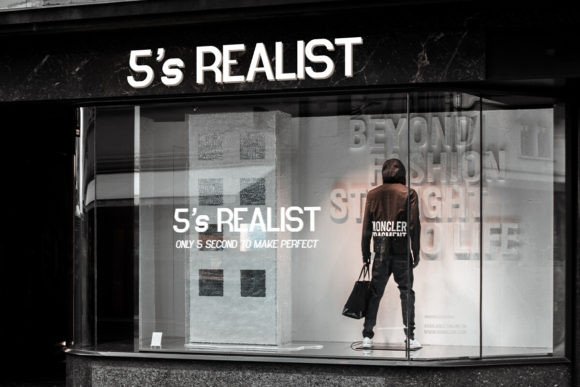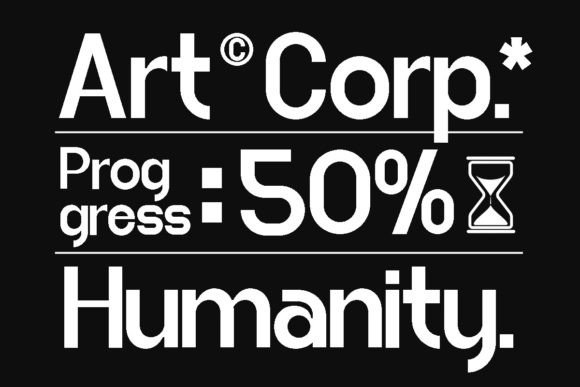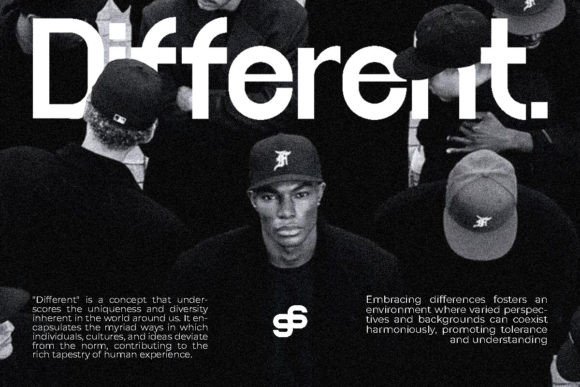
Bingar Font
Bingar modern sans display font has smooth curves and a visual style a can embodies charm and elegance in every lettering, making your work look stunning and attractive. It works in both uppercase and lowercase sizes, suitable for a wide variety of projects such as a display font for headings, logo fonts, invitations, branding, book covers, magazine layouts, card, product packaging, product mockup, mugs, posters, labels, editorials, art deco, and any type of advertising purpose.